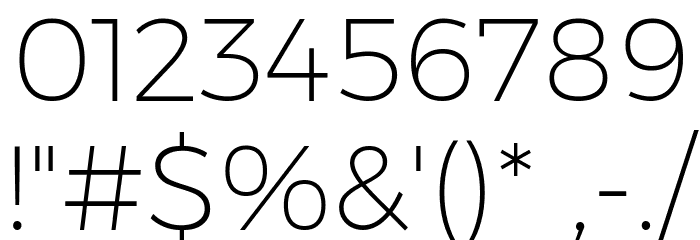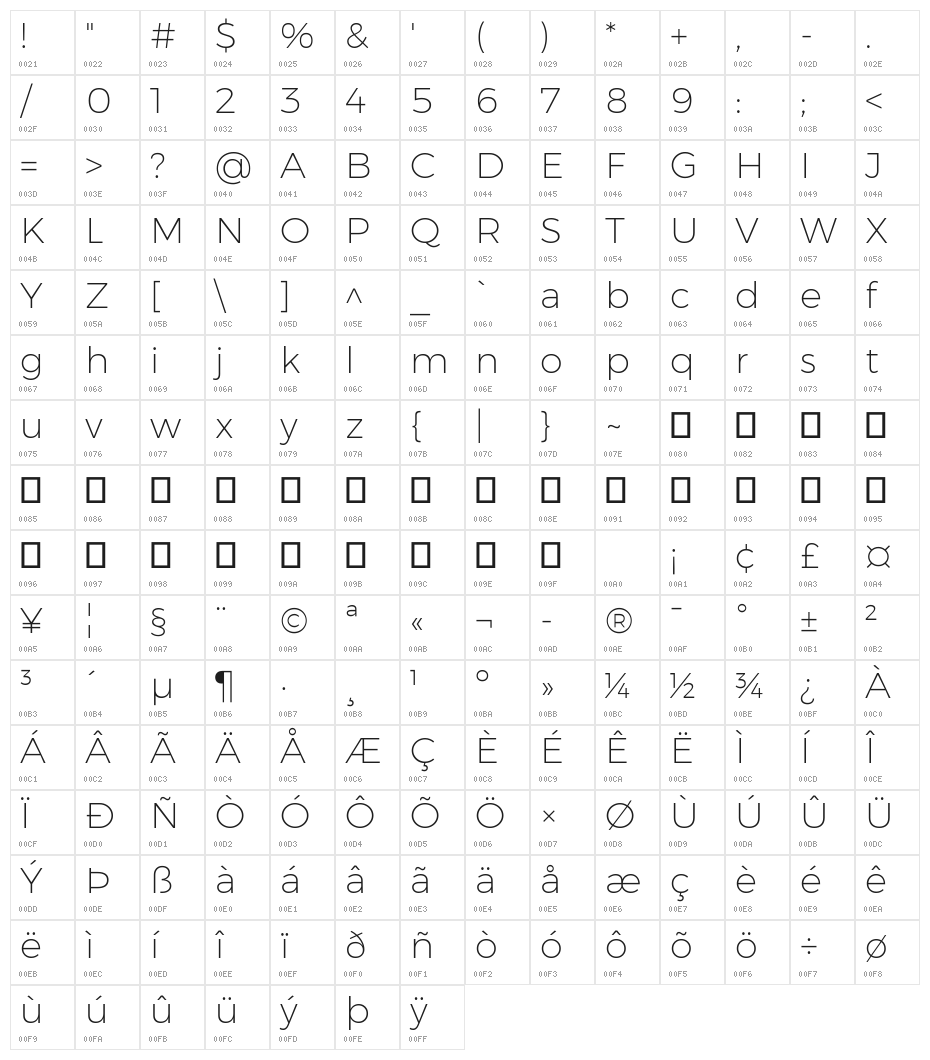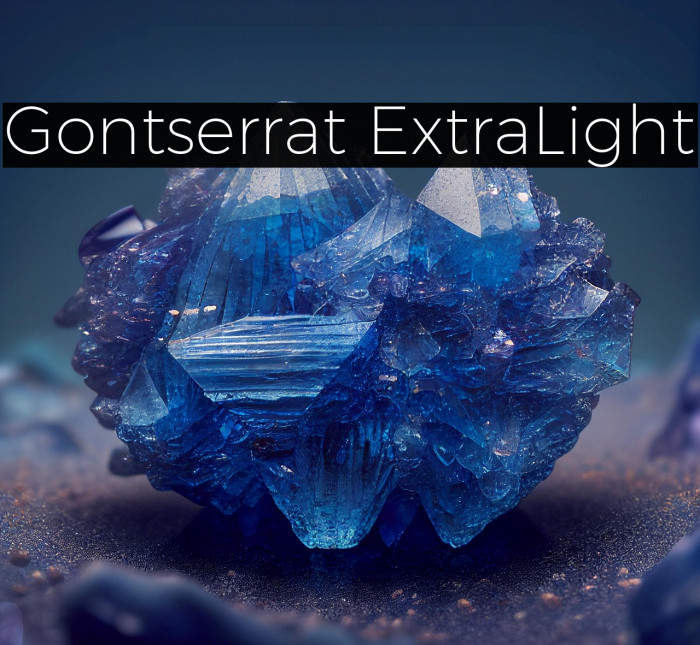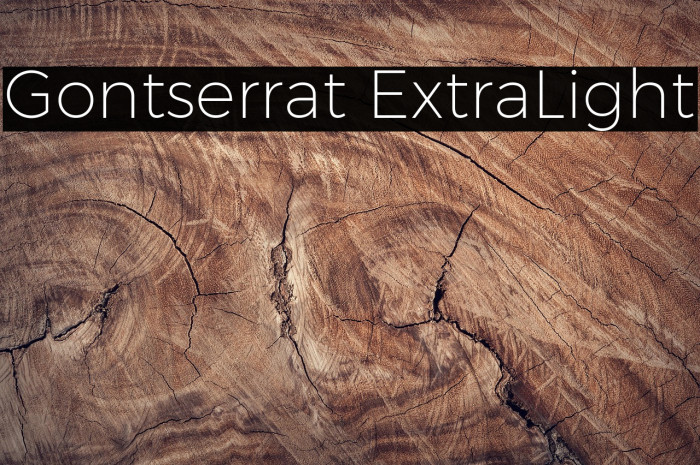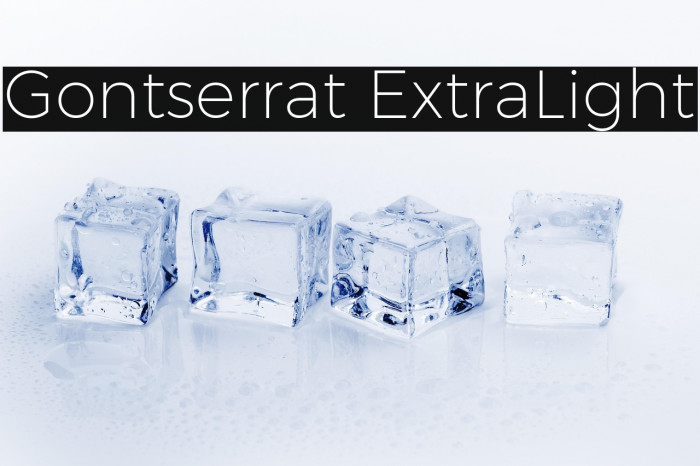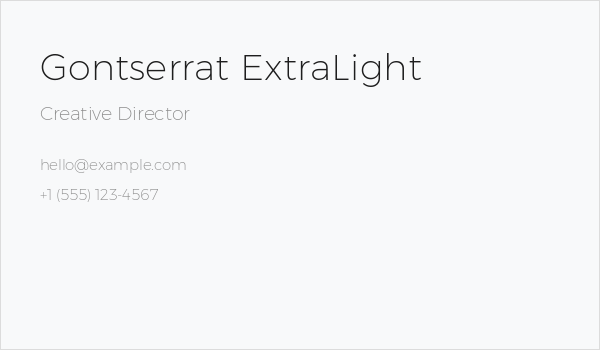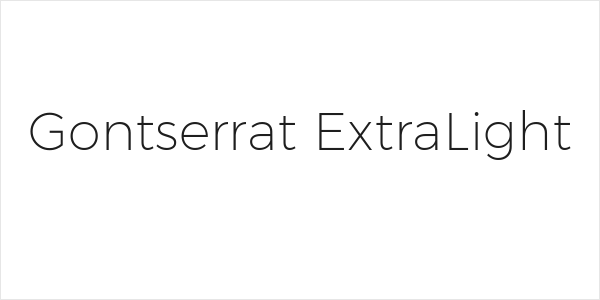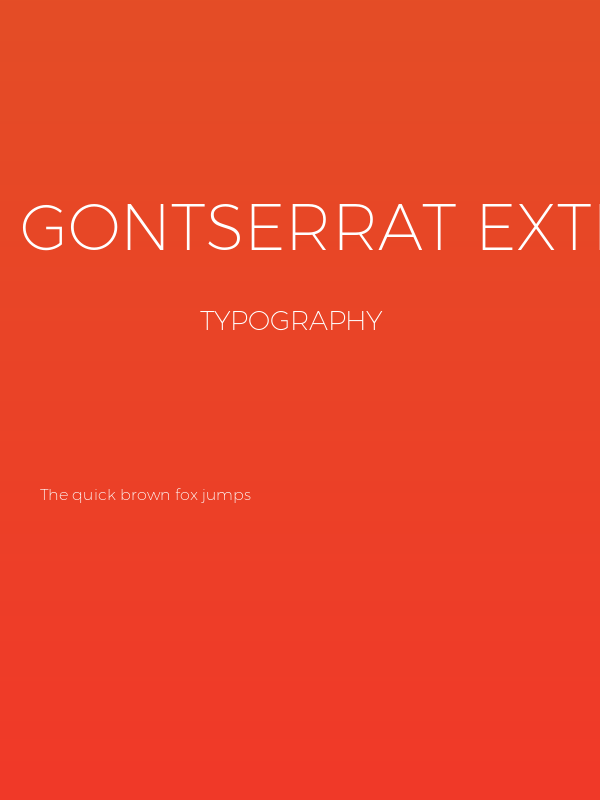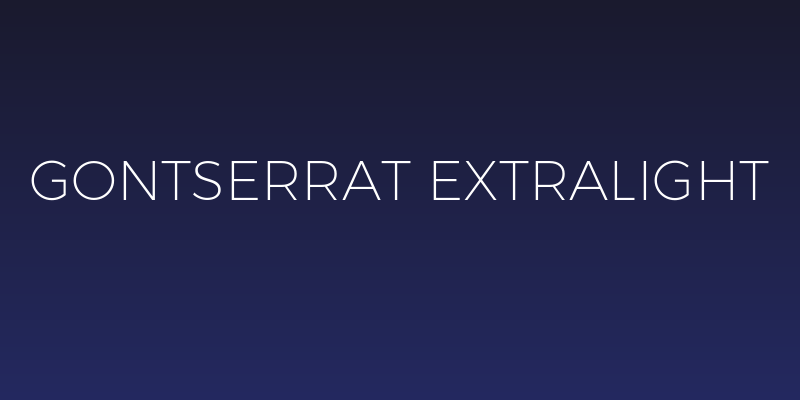
Gontserrat ExtraLight Font
Gontserrat ExtraLight Description
This font features a clean and modern sans-serif design with a geometric structure. The characters are evenly spaced, contributing to a balanced and harmonious appearance. The strokes are uniform and thin, giving it an elegant and minimalist look. The uppercase letters are slightly taller than the lowercase, maintaining a consistent line weight throughout. The numerals are clear and easily distinguishable, making them suitable for both text and display purposes. Special characters are well-defined, enhancing the font's versatility across various applications.
Use CaseHeadlines, Body text, Logos
Proposed ProjectsIdeal for branding, web design, editorial layouts, and minimalist posters.